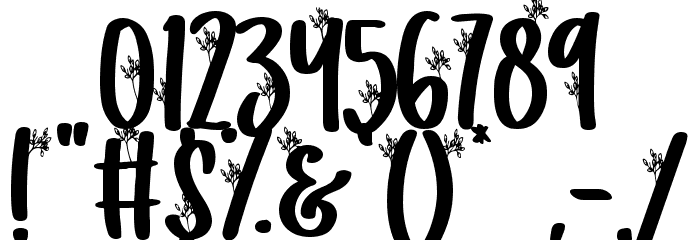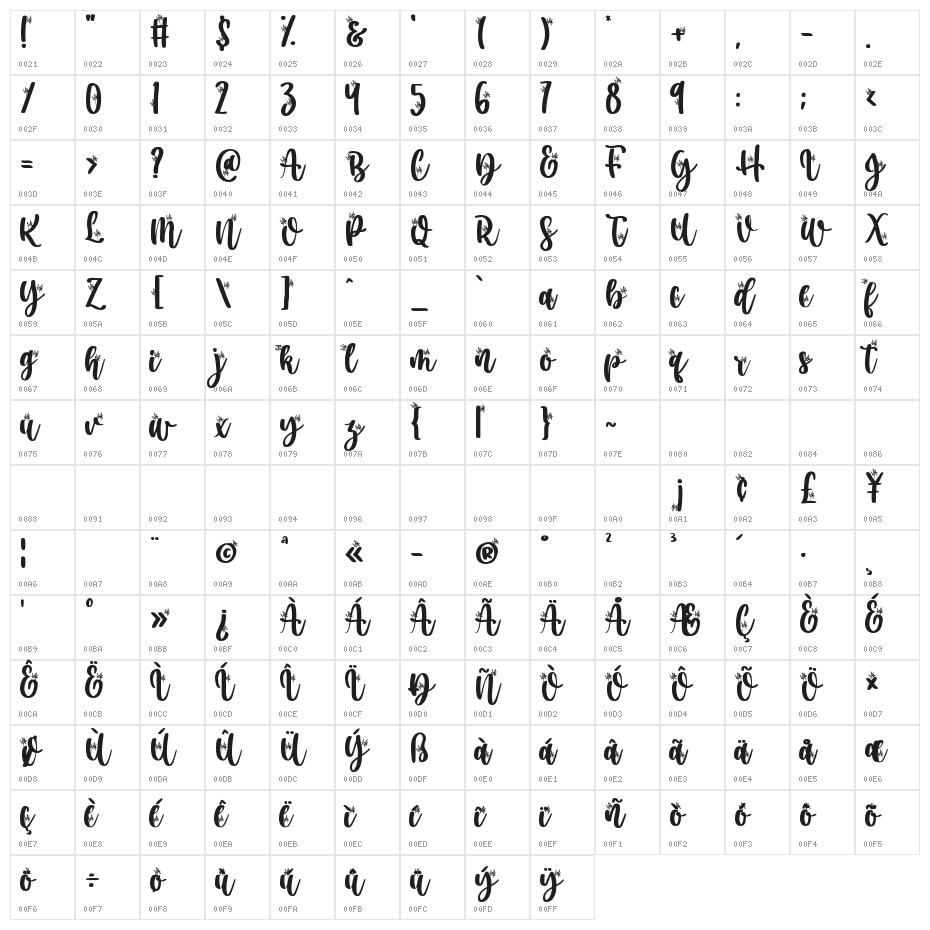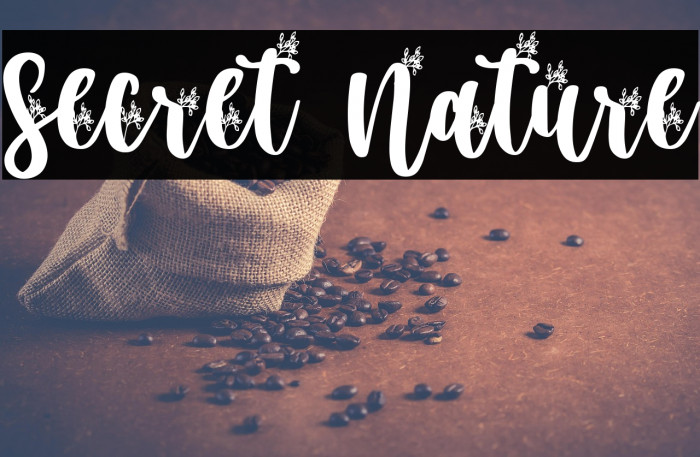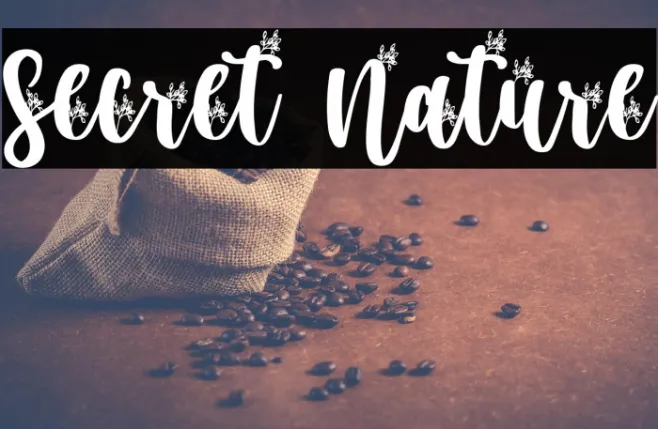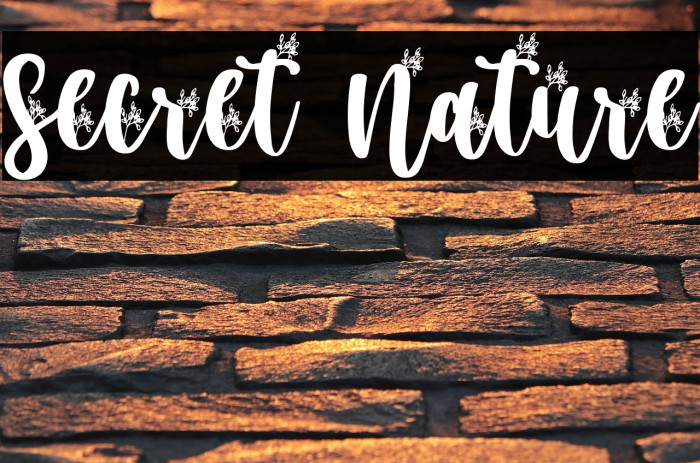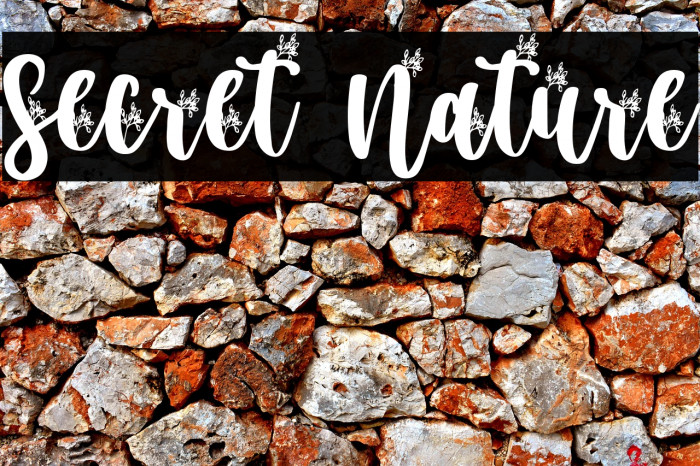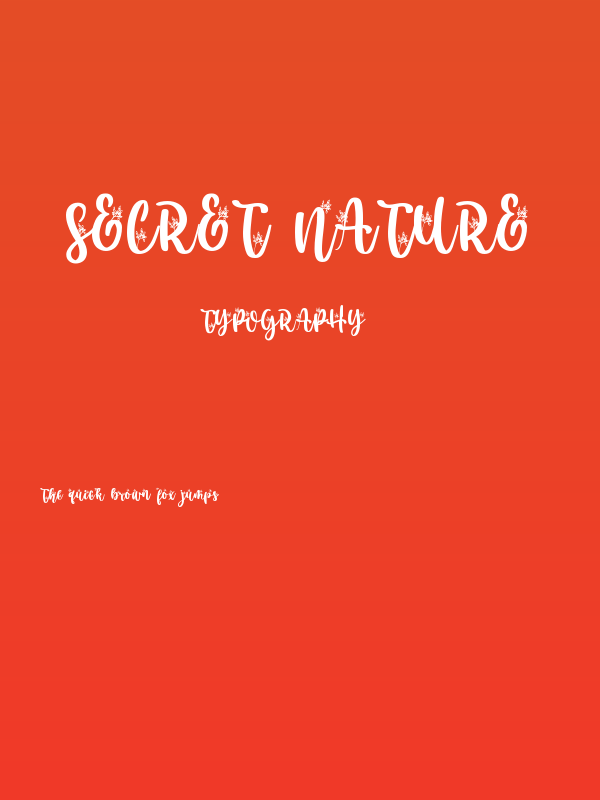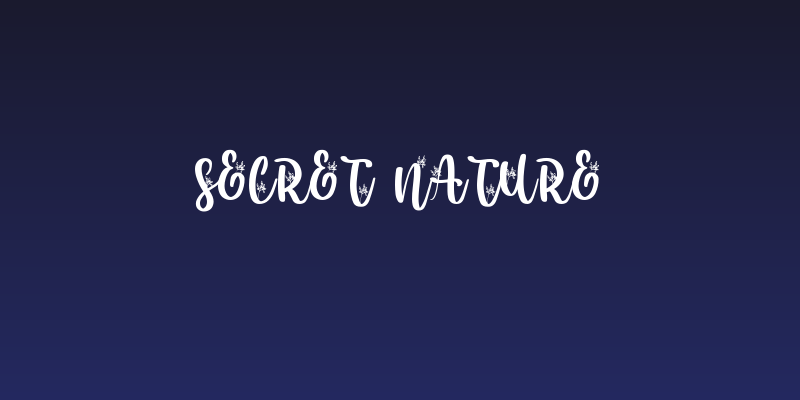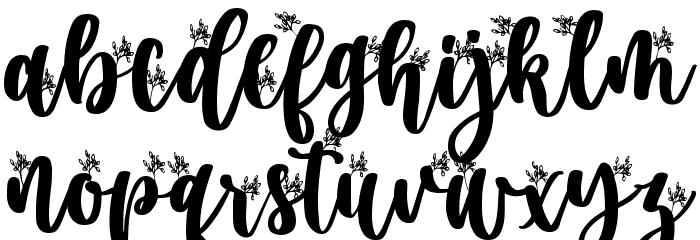
Secret Nature Font
Secret Nature Description
This font features a whimsical and decorative style, characterized by its flowing, cursive script that incorporates playful floral embellishments. The letters are interconnected with smooth, sweeping strokes, giving it an elegant and artistic appearance. The uppercase and lowercase letters maintain a consistent style, with a slight slant that adds to its handwritten charm. The numerals and special characters are designed to match the overall aesthetic, ensuring a cohesive look across all elements. This font is perfect for projects that require a touch of creativity and nature-inspired beauty.
| Proposed Projects | Ideal for wedding invitations, greeting cards, branding, and nature-themed designs. |